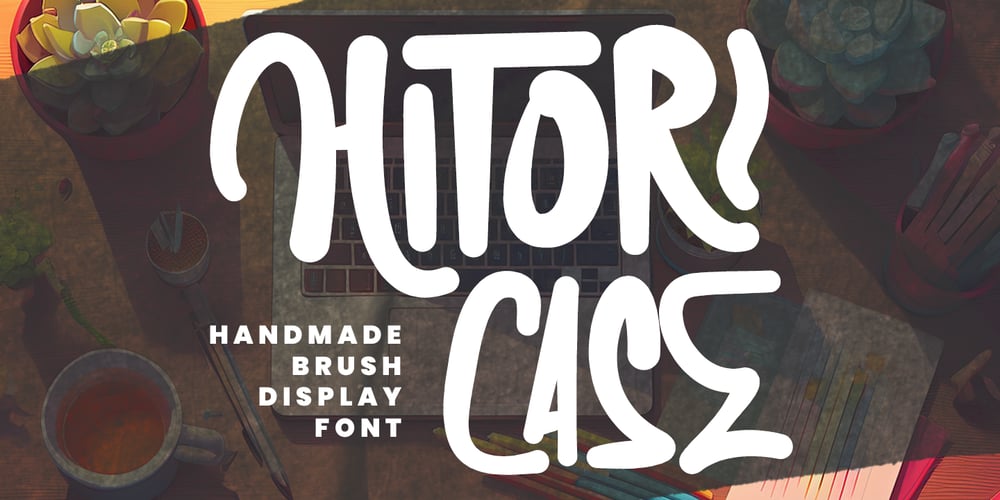
MC Hitori Case Font Family was designed by Gilang Maulana and published by Maulana Creative. MC Hitori Case contains 1 styles and family package options. Give your designs an authentic brush handcrafted feel. “Hitori Case Handmade Brush Display Font” is perfectly suited to signature, stationery, logo, typography quotes, website header, branding and more.